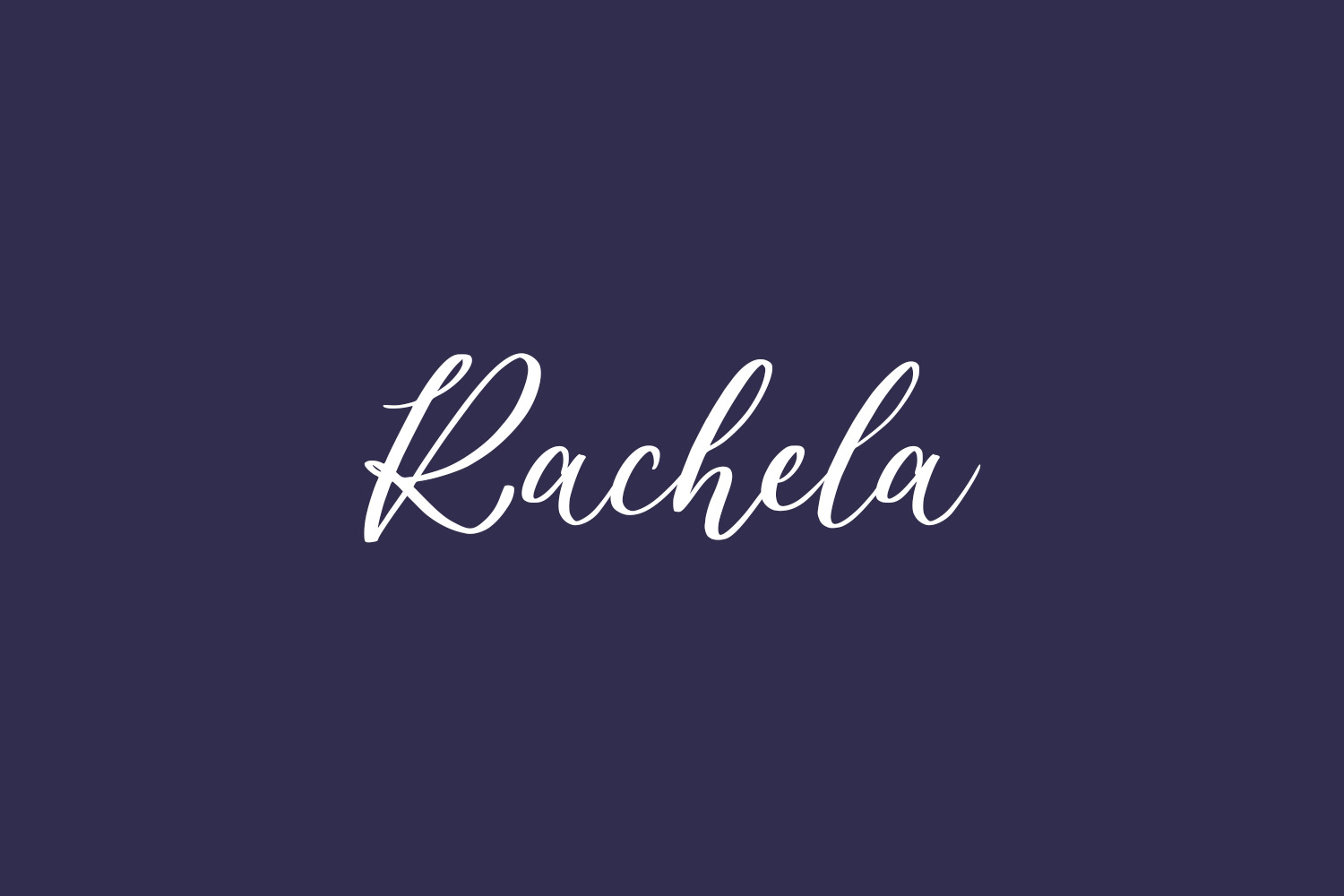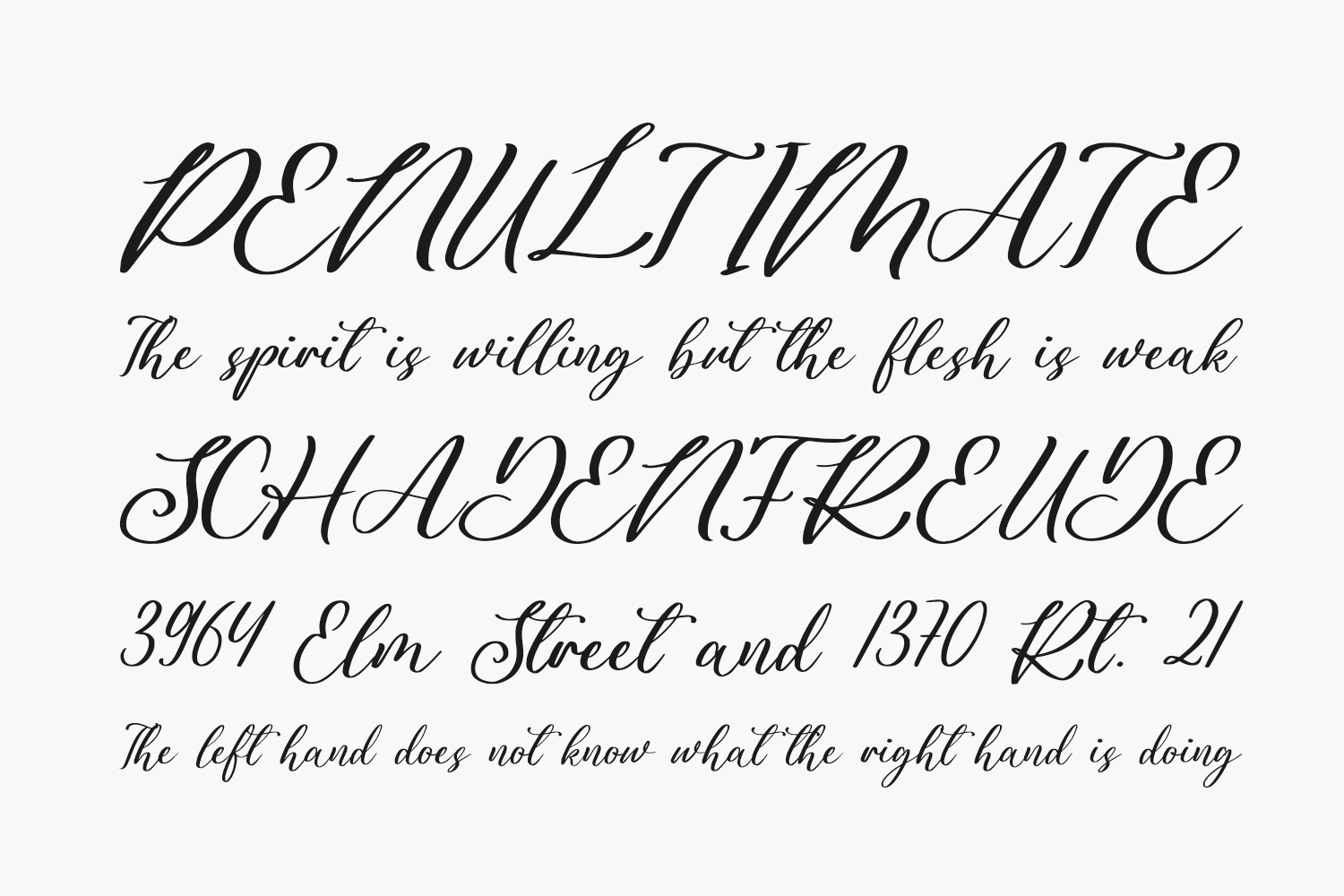
Rachela Free Font is an incredibly beautiful script font. It has a classy, elegant, and modern look that can be used for logos, branding, invitations, stationery, wedding designs, social media posts, and much more. Rachela Free Font was designed by FatmaStudio and is free for personal use only. Please purchase the full version for commercial use.